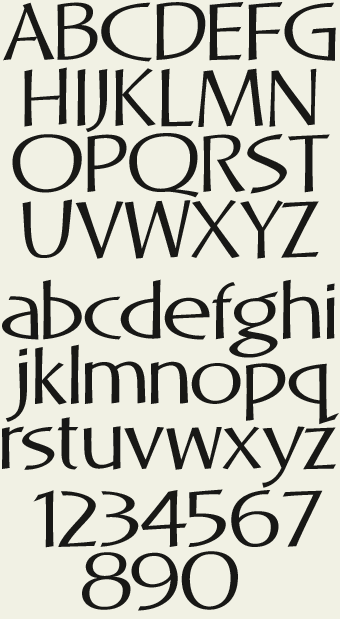
Dave's 2 font set was created to be legible at nearly any size. Has a personable, organic feel without being cartoonish. Includes numbers, full punctuation & accent characters. You might also like: Steven's Percepta & Matthew's Thin.